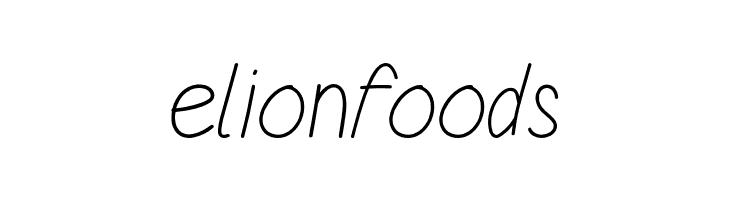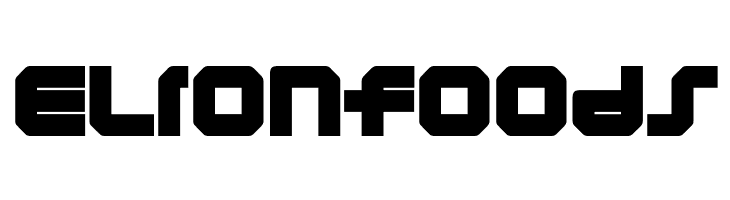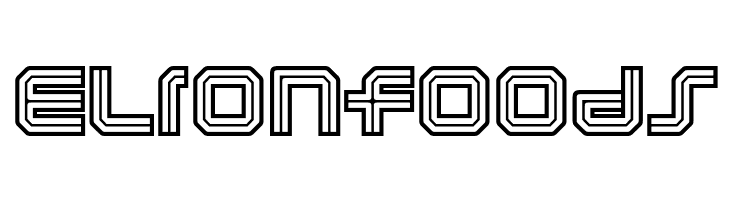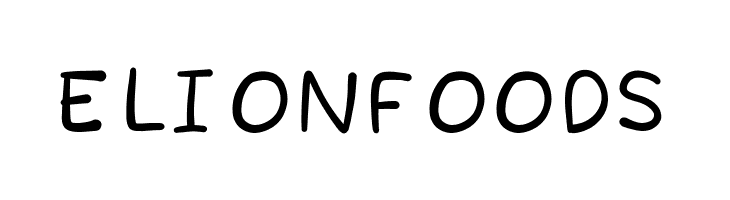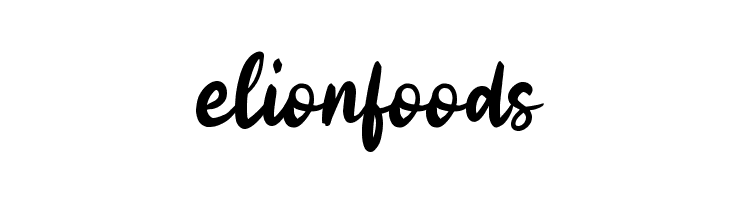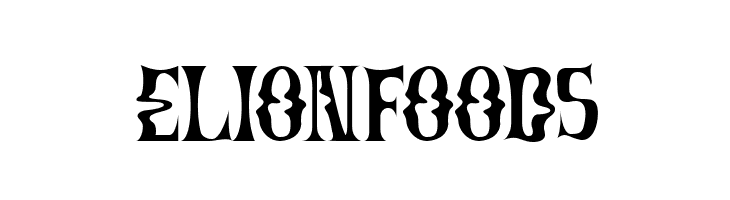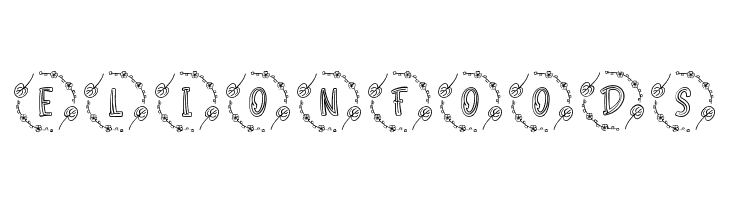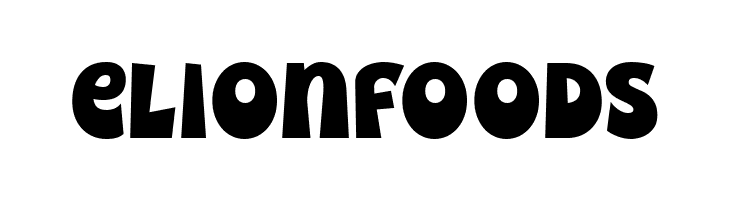
A casual handwritten font with a dynamic and lively appearance.
A bold, geometric font with a futuristic and industrial design.
A futuristic, geometric font with a layered, three-dimensional design.
A geometric, futuristic font with a double-line structure and sharp angles.
A futuristic, geometric font with angular, blocky letterforms.
A playful, handwritten font with a friendly and casual style.
A bold, dynamic script font with flowing, cursive strokes.
A bold, high-contrast font with sharp, angular edges and unique cut-out shapes.
A decorative font with uppercase letters encased in floral wreaths, offering a vintage and elegant look.
A playful, bold font with a cartoonish and lively design.